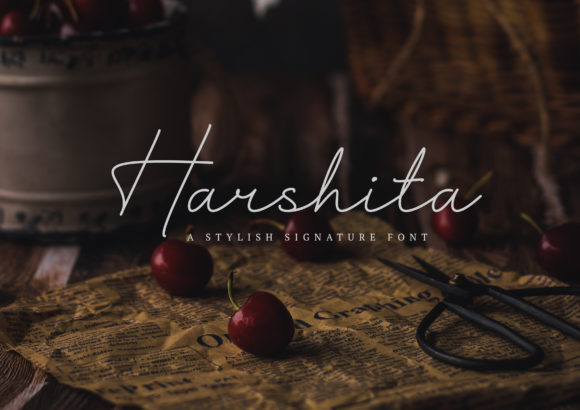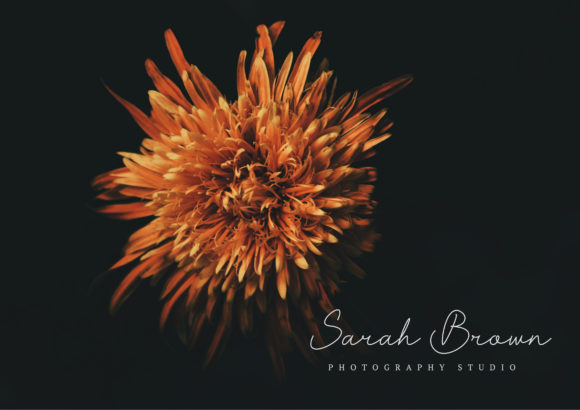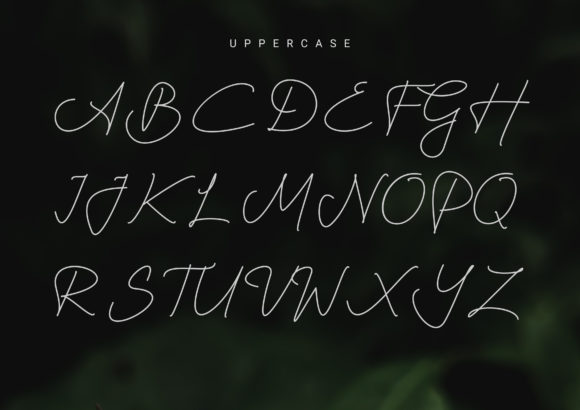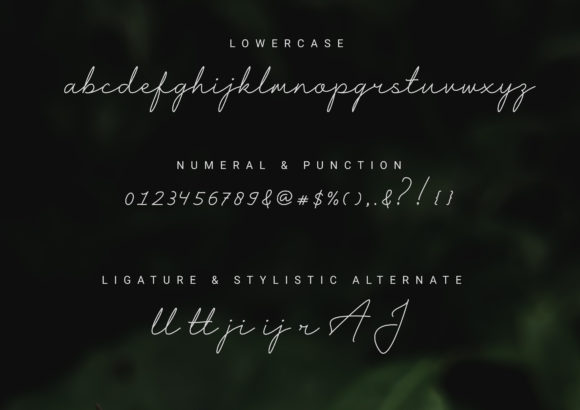
About Harshita Font
Harshita is a delicate, well balanced and thin lettered script font. It looks beautiful on a variety of designs requiring a personalized style, such as wedding invitations, thank you cards, weddings, greeting cards, logos and so on.